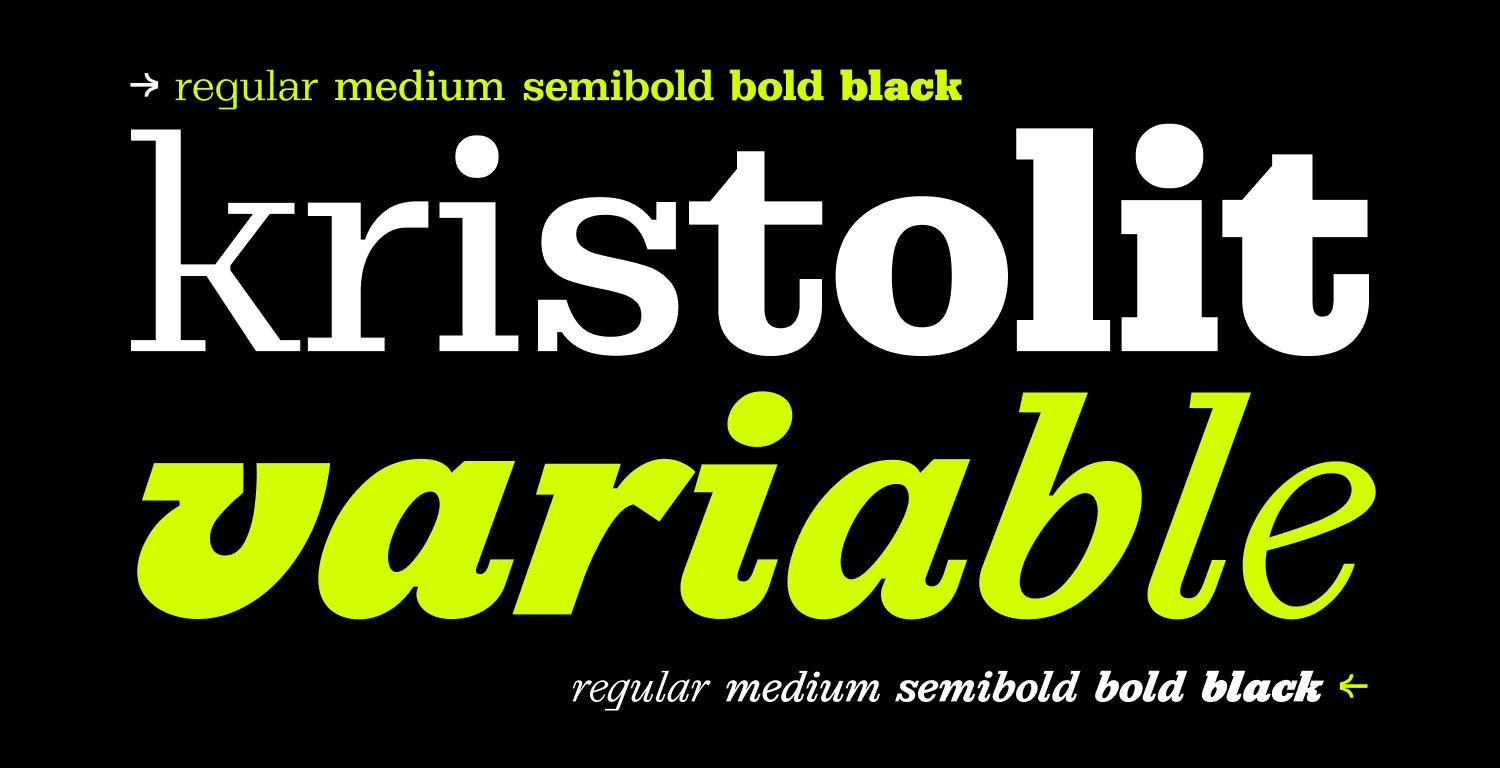
There are plenty of trendy serifs around, but there are challenges when it comes to truly technological and robust ones and sets with Cyrillic support. Thi...